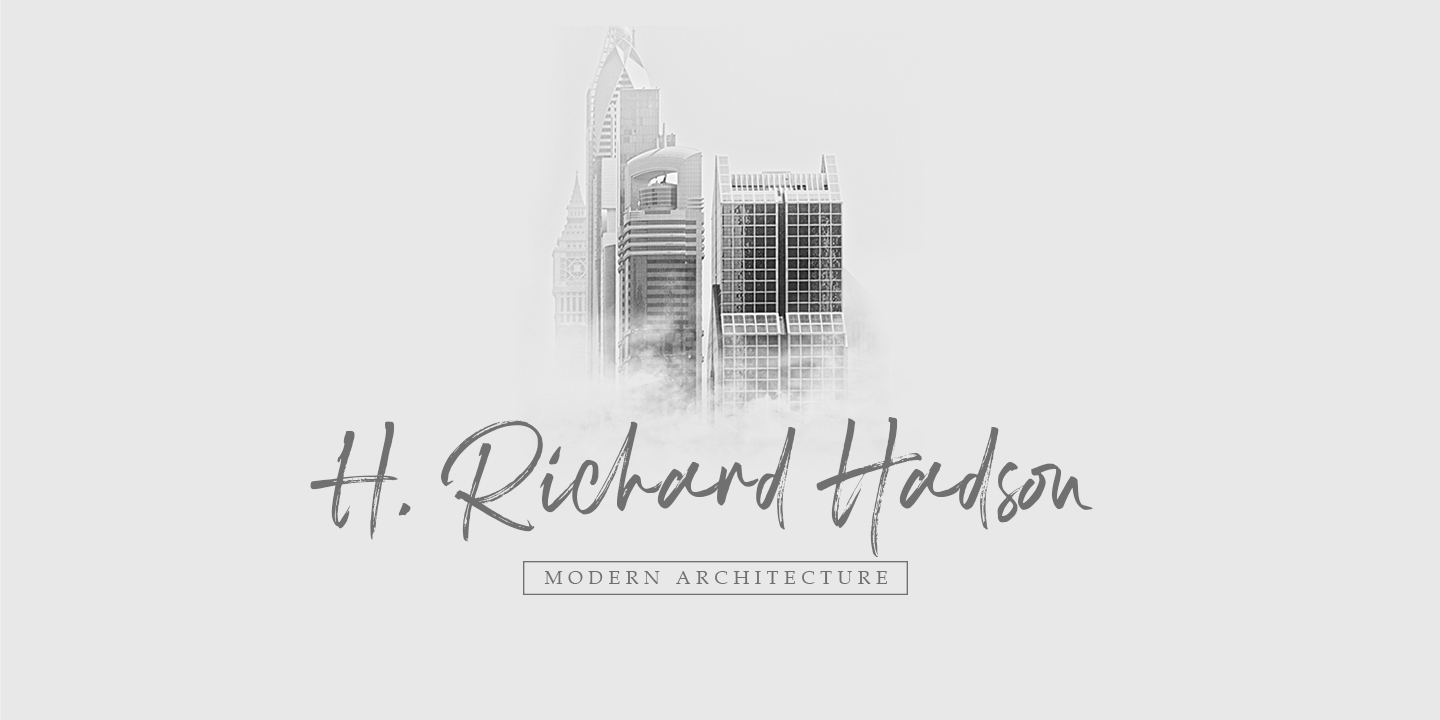
This mysterious display font is perfect for maritime thriller branding, deep sea exploration marketing, gothic ocean-themed designs, dark nautical campaigns, submarine technology logos, underwater photography portfolios, mysterious marine documentaries, and dramatic design projects that celebrate the ocean's enigmatic depths and untamed power.
Black Ocean Font is exciting because it embodies oceanic mystery with its flowing letterforms that surge like midnight waves beneath stormy skies. The font delivers abyssal sophistication while maintaining deep-sea readability that captures the ocean's infinite darkness and primordial power.
The Black Ocean Font family includes regular and distressed versions with ocean-themed decorative elements, nautical symbols, and dark wave ornaments, providing designers with comprehensive tools for creating tidal typography that drowns ordinary design in depth.
Ready to dive into oceanic darkness? Black Ocean Font Free Download offers designers flowing letterforms that surge with maritime mystery and abyssal elegance. This captivating typeface combines dark ocean aesthetics with professional functionality, making it ideal for marine exploration companies, nautical thriller publishers, and oceanic research organizations. Whether you're designing deep sea documentary titles, maritime mystery book covers, or submarine technology presentations, this font delivers profound appeal. The mysteriously crafted characters feature oceanic flow while maintaining excellent readability across marine applications. Perfect for businesses in marine exploration, oceanic research, nautical entertainment, and underwater technology that celebrate the ocean's mysterious depths and untamed power. The font's oceanic construction creates memorable brand recognition that resonates with ocean enthusiasts worldwide. Each letter showcases deliberate depth that mirrors the infinite mystery of unexplored seas. Download today and plunge into oceanic success with this premium display font that transforms ordinary text into extraordinary expressions of maritime mystery and the endless depths of Black Ocean Font Free Download darkness.